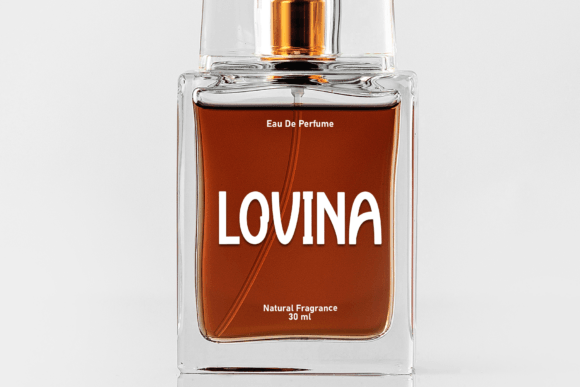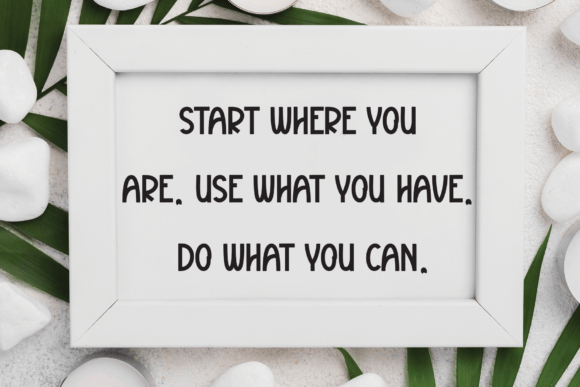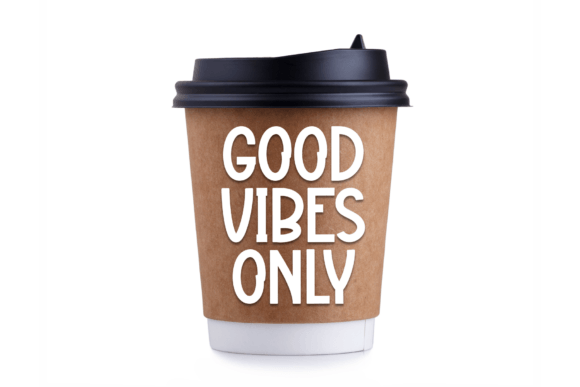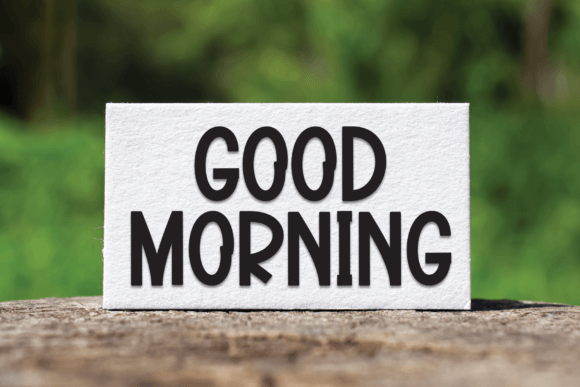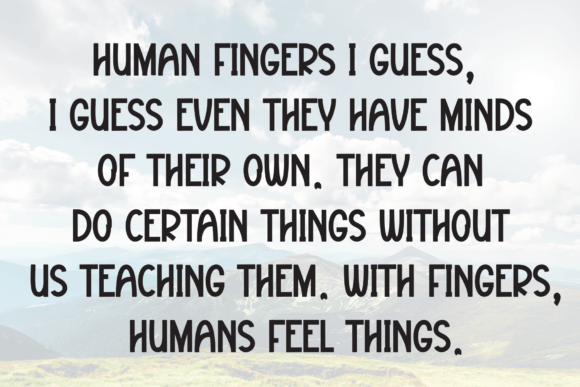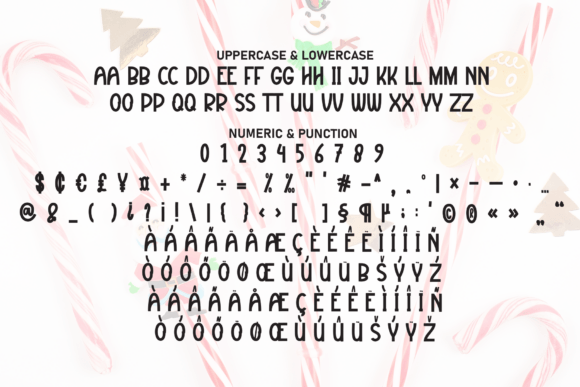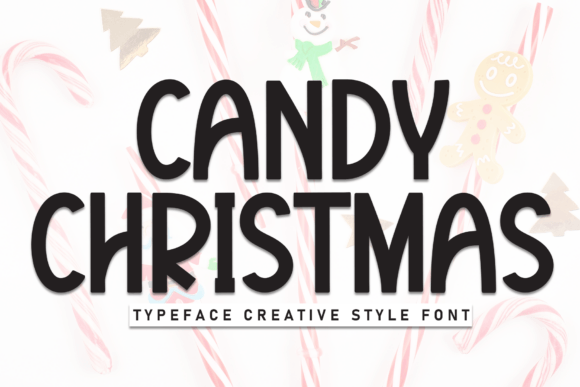
The Sweetest Addition to Your Design Toolbox: Candy Christmas Font
Ah, the quest for the perfect font – a journey we’re all too familiar with as designers, crafters, and creative hobbyists. I recall a particularly frustrating project where I was tasked with creating a whimsical wedding invitation. My client wanted something that exuded joy, playfulness, and a dash of sophistication. As I scrolled through font after font, nothing seemed quite right. That was until I stumbled upon the delightful Candy Christmas Font. It’s been a game-changer ever since, and I’m excited to share its charms with you! 🎉
Let’s dive into what makes Candy Christmas Font a standout addition to your design arsenal:
• ✨ Playful yet elegant: This font strikes the perfect balance between whimsy and sophistication, making it ideal for a variety of projects.
• ✅ Easy to read: Despite its playful nature, Candy Christmas Font remains highly legible, even at smaller sizes.
• 🌈 Versatile: Use it for wedding invitations, greeting cards, posters, or any project that needs a splash of personality.
Now, onto the quirks:
• 🤔 Limited use for body text: While it’s perfect for headlines and titles, Candy Christmas Font might not be the best choice for longer blocks of text due to its decorative nature.
The Story Behind Candy Christmas Font
Candy Christmas Font was designed with the intention of spreading joy and whimsy. Its creator aimed to craft a font that would not only be visually appealing but also evoke a sense of playfulness and warmth. The result is a font that’s perfect for any project that needs a dash of personality and charm.
Is Candy Christmas Font suitable for body text? While it’s primarily designed for headlines and titles, it can be used for short paragraphs. However, for longer texts, a more readable font might be preferable.
Does Candy Christmas Font support OpenType features? Yes, it does. This allows for a range of stylistic alternates and glyphs to enhance your designs.
In conclusion, Candy Christmas Font is a delightful addition to any designer’s toolbox. Its playful yet elegant nature makes it perfect for a wide range of projects, from wedding invitations to fun posters. With its easy readability, versatility, and access to OpenType features, it’s sure to bring a smile to your viewers’ faces. So, why not give it a try and add a noticeable charm to your designs?